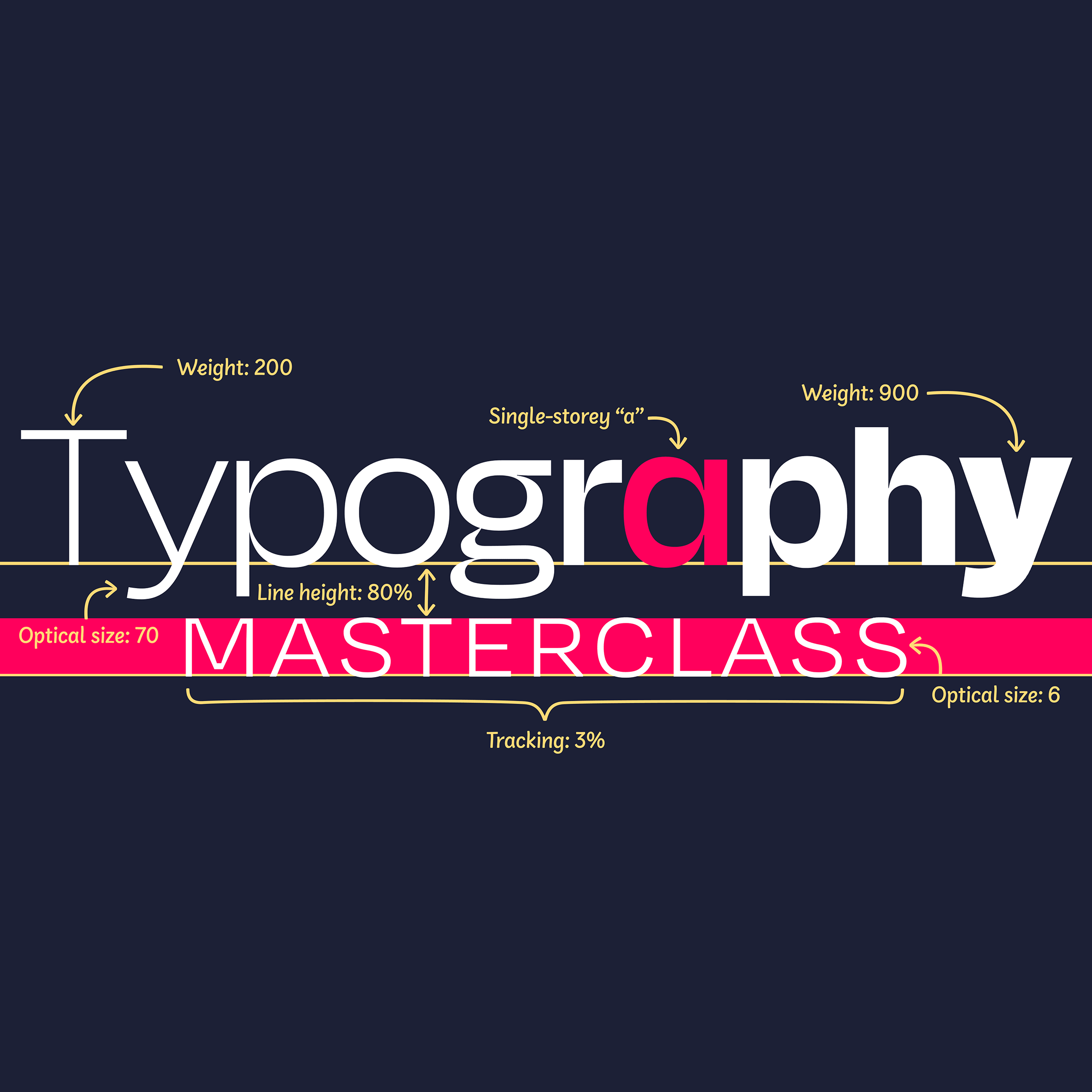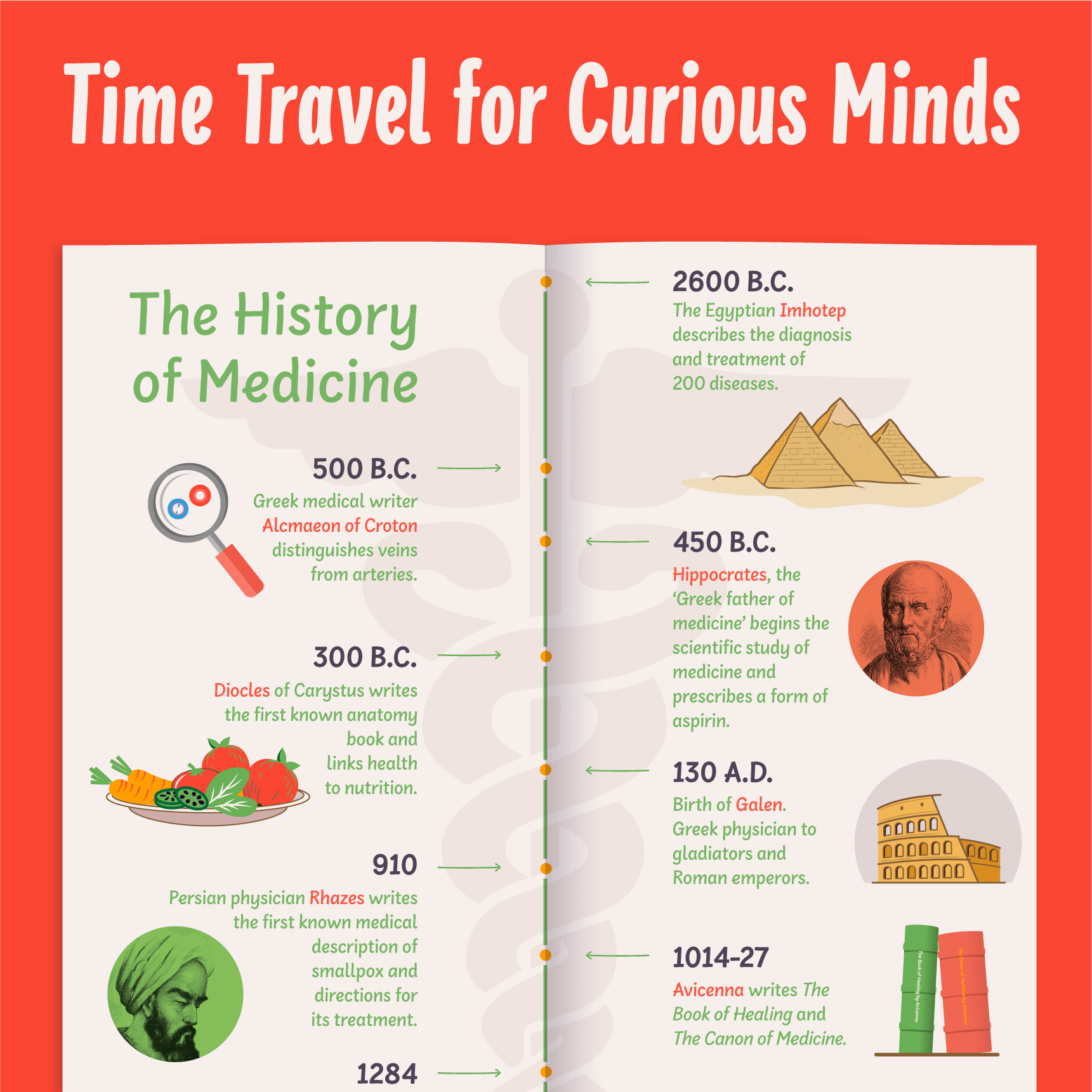
SideNote
Features
Opentype Features
Circled Numbers Black
Circled Numbers
Ordinals
Fractions
Inferiors & Superiors
Tabular Figures
Oldstyle Figures
Contextual Alternatives – Underlines
Contextual Alternatives – Big Braces
Contextual Alternatives – Emoji
Contextual Alternatives – Vowels
Alternative Asterisk
Alternative &
Alternative 4
Alternative a
Alternative Q
SideNote is a smart-casual typeface designed to annotate, explain and engage. Striking the perfect balance between fun and professional, it’s ideal for headings, descriptions and dialogue that need a touch of personality. Friendly yet informative, SideNote delivers tricky information in a helpful, reassuring tone.
Packed with useful features like emoji, arrows and underlines, SideNote adds a bit of sparkle to otherwise dry text. Whether you’re crafting presentations, annotating illustrations or explaining complex ideas, SideNote is your friendly assistant, ready to make your communications clear and engaging.